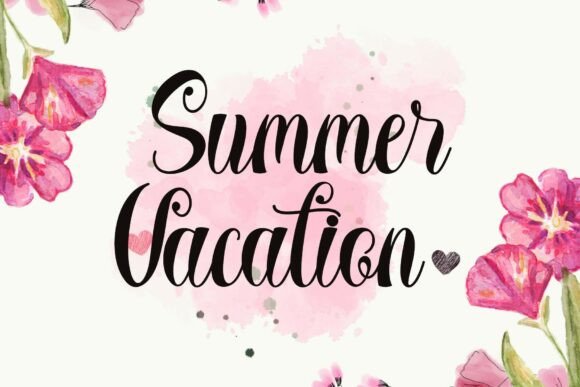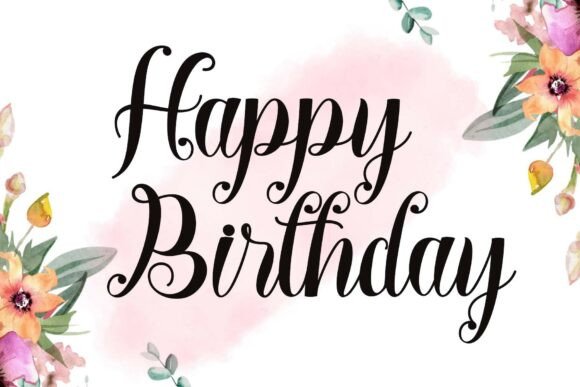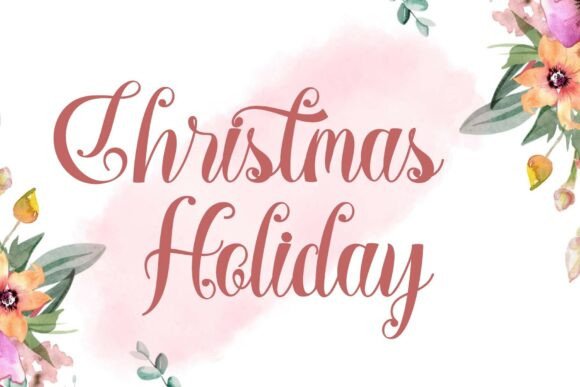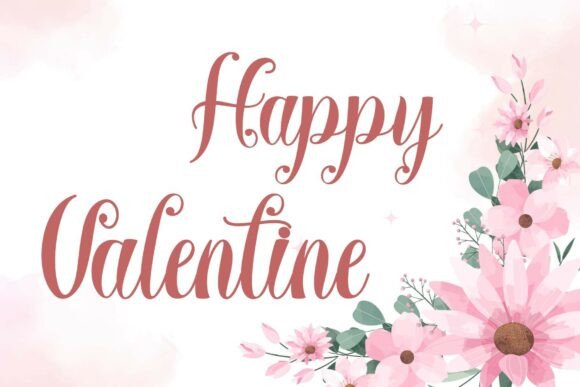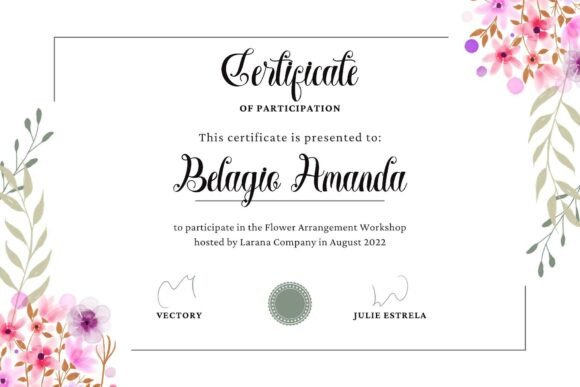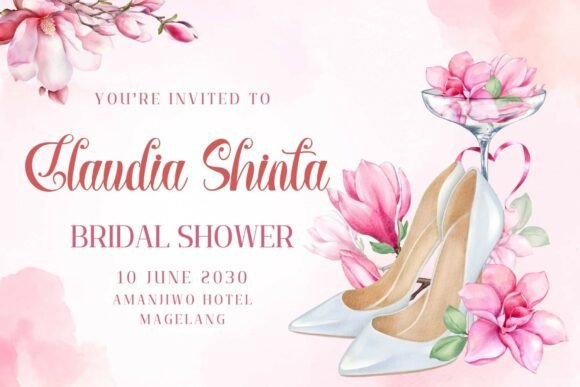
Athena Wedding Font: The Perfect Choice for Elegant Designs
Are you looking for a beautiful and professional handwritten font to elevate your designs? Look no further than the Athena Wedding Font. This elegant font is perfect for creating stunning wedding invitations, romantic valentines, and other special occasion designs. In this article, we’ll explore the features and benefits of the Athena Wedding Font and why it’s a must-have for designers and crafters.
What is Athena Wedding Font?
Athena Wedding Font is a gorgeous, handwritten font that exudes elegance and sophistication. It’s designed to be versatile and can be used for a wide range of projects, from wedding invitations and photography to business branding and certificates. The font comes with a range of features, including uppercase and lowercase letters, numerals, punctuations, ligatures, and multilingual support.
Key Features of Athena Wedding Font
- Uppercase and Lowercase Letters: The font includes both uppercase and lowercase letters, making it perfect for creating titles, headings, and body text.
- Numerals and Punctuations: The font includes a range of numerals and punctuations, making it easy to create professional-looking designs.
- Ligatures: The font includes ligatures, which are special characters that combine two or more letters to create a beautiful, flowing effect.
- Multilingual Support: The font supports multiple languages, making it perfect for designers who work with clients from around the world.
Perfect for Special Occasions
Athena Wedding Font is perfect for creating designs for special occasions, such as:
- Weddings: Create stunning wedding invitations, save-the-date cards, and wedding programs with this beautiful font.
- Valentines: Create romantic valentines and love letters with this elegant font.
- Birthdays: Create beautiful birthday cards and invitations with this font.
- Christmas: Create festive Christmas cards and decorations with this font.
- Business Branding: Use this font to create professional-looking business cards, brochures, and website headers.
Why Choose Athena Wedding Font?
There are many reasons why Athena Wedding Font is a great choice for designers and crafters. Here are a few:
- Elegant and Sophisticated: The font has an elegant and sophisticated look that’s perfect for creating high-end designs.
- Versatile: The font can be used for a wide range of projects, from weddings to business branding.
- Multilingual Support: The font supports multiple languages, making it perfect for designers who work with clients from around the world.
Athena Wedding Font is a beautiful and professional handwritten font that’s perfect for creating elegant designs. With its range of features, including uppercase and lowercase letters, numerals, punctuations, ligatures, and multilingual support, it’s a versatile font that can be used for a wide range of projects. Whether you’re a designer or crafter, Athena Wedding Font is a great choice for creating stunning wedding invitations, romantic valentines, and other special occasion designs.